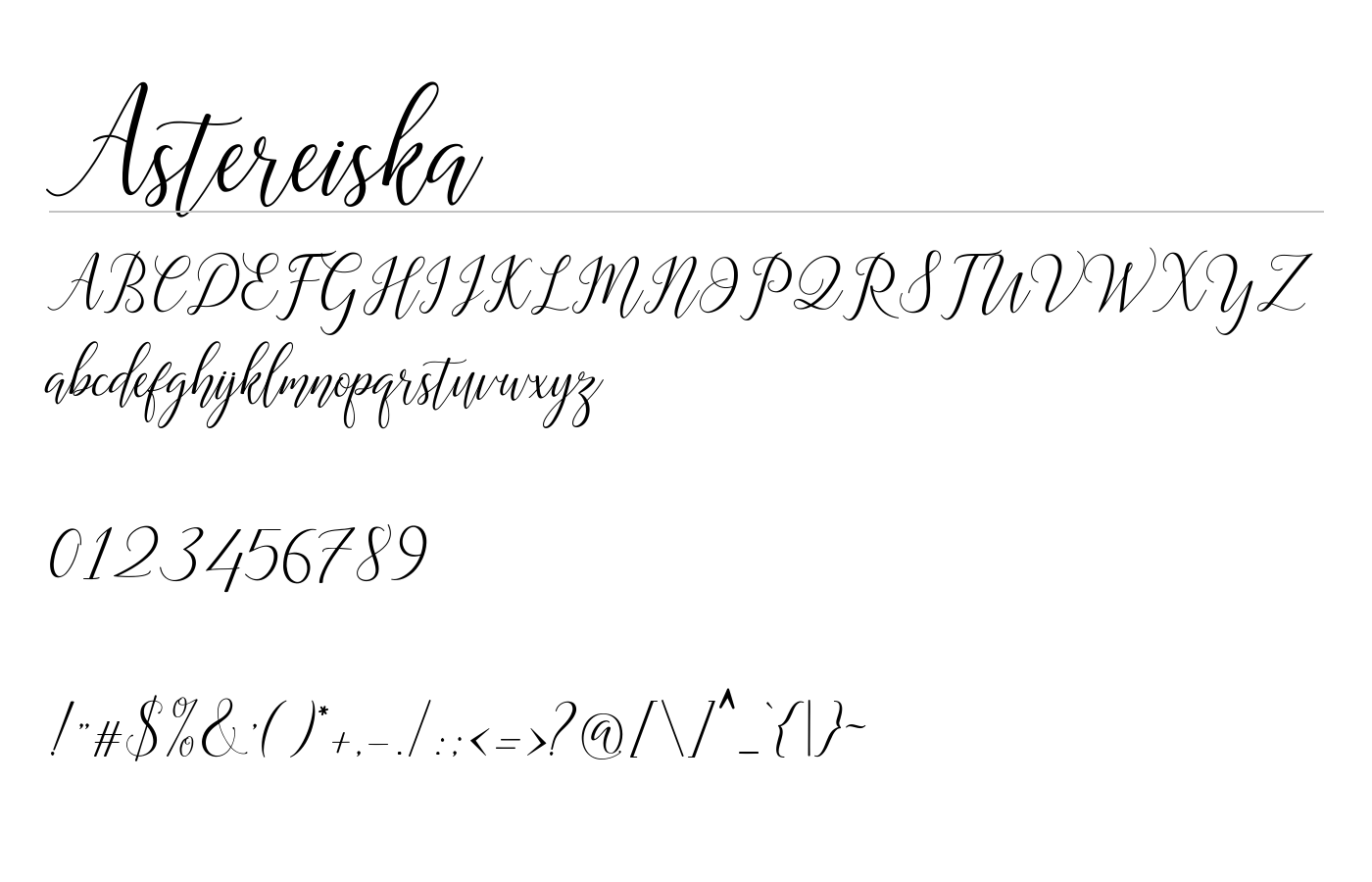
Astereiska is an elegant script font characterized by its delicate, flowing strokes and refined calligraphic style. Its light weight and graceful curves convey a sense of sophistication and charm, making it ideal for luxurious branding, wedding invitations, and elegant editorial projects. The font’s fluid letterforms and stylish lowercase characters create a warm, personal touch while maintaining readability and a polished appearance.
Astereiska Font
About Astereiska Font
| Font family | Astereiska Font |
| Designer | Amarlettering_kamaruddin |